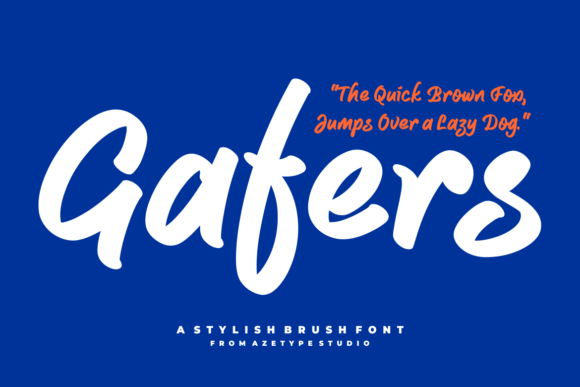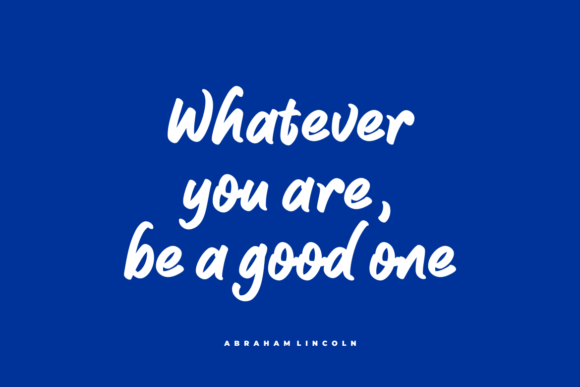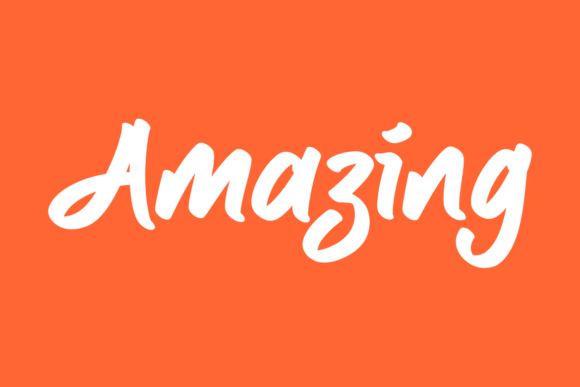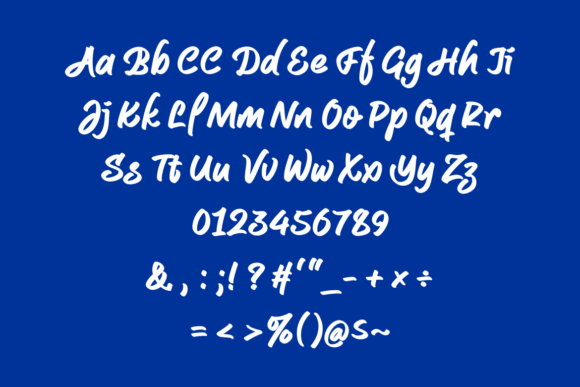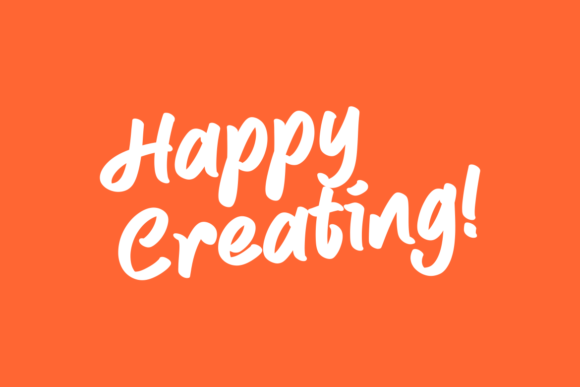
Gafers Font
A Bold and Versatile Brush Script
Gafers is a strong brush font designed to bring a casual yet impactful feel to any project. Its solid strokes and organic shapes create a natural, handcrafted look that stands out while staying friendly. Whether you’re designing logos, posters, or social media graphics, Gafers adds personality and clarity to your work.
Its effortless charm makes it a go-to choice for designs that need to feel genuine and bold at the same time.
Gafers is incredibly versatile and adapts beautifully to different uses. It’s perfect for headlines, product packaging, and advertising materials. The bold brush style ensures your message grabs attention even on busy backgrounds.
For branding, Gafers works well on logos, labels, and business cards. Its casual script style creates a strong, approachable identity that feels both modern and authentic.
Use this font for merchandise designs like t-shirts, tote bags, and stickers. The solid strokes make your text stand out from a distance while still feeling warm and hand-crafted.
On social media, Gafers helps your content stay clear and eye-catching. Whether you’re posting quotes, announcements, or promotions, this font keeps your visuals fresh and professional.
Clear, Bold, and Easy to Read
Even with its artistic brush texture, Gafers remains highly legible. The consistent weight and balanced spacing ensure your text looks clean at any size. From large banners to smaller captions, every word is easy to read.
For a polished layout, pair Gafers with a minimalist sans-serif font. Use Gafers for headings and featured text, and the sans-serif for supporting content. This pairing creates a modern, organized design that feels cohesive and strong.
To make Gafers stand out, use simple backgrounds and contrasting colors. Bold shades like black, white, and deep blue help highlight the brush details and ensure maximum readability.
When designing posters or packaging, keep other graphic elements minimal so the text remains the main focus. Small decorative accents can complement the brush texture without overwhelming it.
On social media, embrace white space to give the font room to breathe. This approach keeps your design clean and easy to follow.
Think about the feeling you want to create. Gafers is perfect for projects that should feel confident, creative, and approachable.
Gafers isn’t just another brush font—it’s a creative tool that helps your work stand out with a natural, strong voice. From branding to merchandise and digital content, this font adapts easily to any project and adds a touch of handcrafted charm.
Adding Gafers to your font collection ensures you always have a reliable, versatile option ready for any design. Whether you’re making bold headlines or detailed packaging, Gafers delivers clarity and style in every situation.